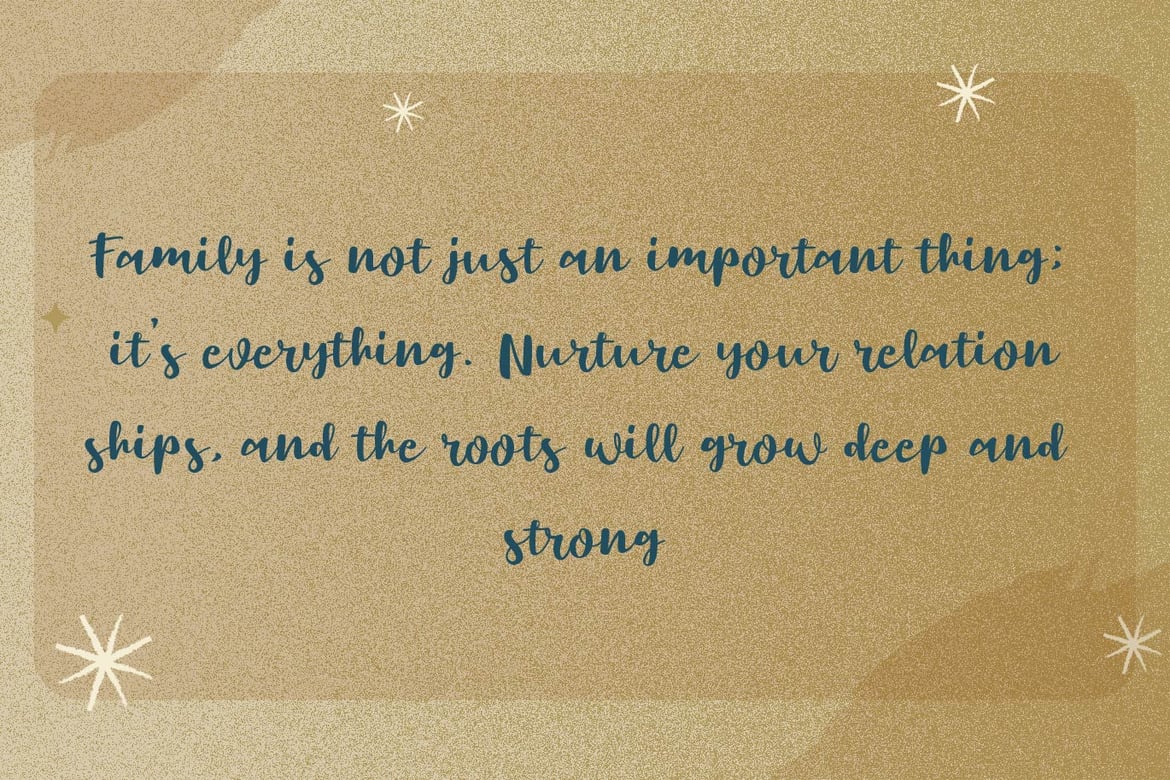
Brigitta – Playful Script Font
Brigitta – Casual Handwritten Font which can be interpreted professional. we keep this font looks playful, modern, stylish, readable, stylish, catchy and easy to use.
Brigitta – is the great choice for photography, branding, event, signature or signature logo design magazine and many other design project. Brigitta here to make your work to high level!!!